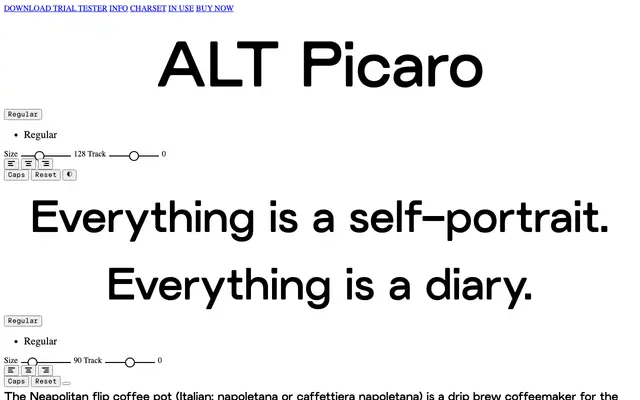
ALT Picaro
A single-weight geometric sans with uniform stroke weights, subtly rounded terminals and broad Latin language support across 484 glyphs.
Built around clean geometry and a wide stance, it pairs an elevated crossbar with gently rounded terminals to soften what is otherwise a crisp, precise design. The sole Regular weight covers 484 glyphs, full Latin Extended-A and 95% of Latin Plus languages, making it a practical choice for international brand or editorial work. Its character sits somewhere between a neutral display grotesque and a warmer, personality-driven face, suited to titles and short-form digital copy.
Clean lines, uniform stroke weights and subtly rounded terminals point clearly to a geometric sans construction. The wide stance and elevated crossbar are characteristic geometric traits with a slight humanist warmth introduced through the terminal treatment.